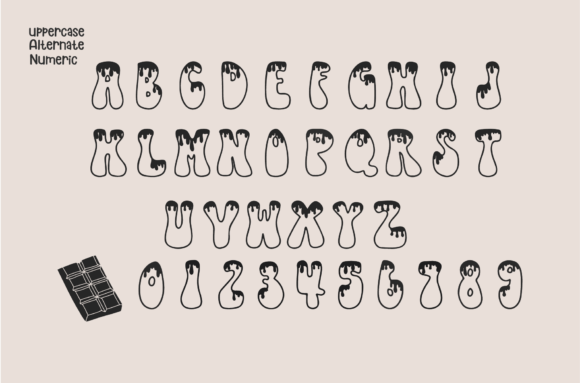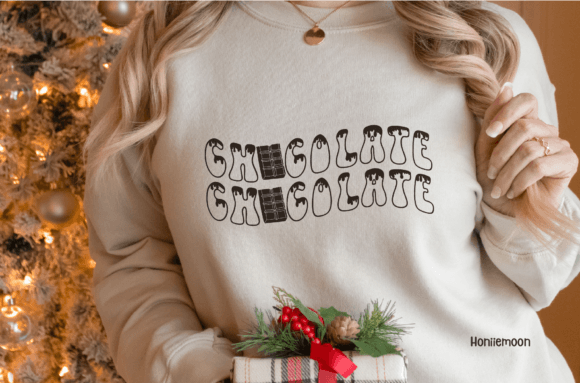
The Sweetest Font You’ll Ever Meet: Chocolate Font
I’ll never forget the time I was working on a project for a client’s kids’ party invitations. I had the design all conceptualized, but something was missing – the perfect font. I scrolled through my font library, but nothing seemed quite right. That’s when I stumbled upon the Chocolate Font. It was love at first sight! 🎉
This cool and fun decorative font instantly added a playful touch to my design. It looked both cute and jolly, and I knew it would enhance each of my creative ideas. The only limit was my imagination! In this article, I’ll share with you why I’m obsessed with the Chocolate Font, its features, and how to make the most of it in your designs.
- ✨ Cute and playful vibe: The Chocolate Font is perfect for designs that need a fun and youthful touch.
- ✅ Ease of use: This font is easy to read and works well in various design contexts, from digital to print.
- 🎉 Versatility: It comes with a range of OpenType features, glyphs, and stylistic alternates, making it versatile for different design projects.
While the Chocolate Font is amazing, there are a few things to keep in mind:
- 🤔 Legibility at small sizes: Like many decorative fonts, it may lose legibility at very small sizes. It’s best used at larger sizes where its charm can shine.
- ⚠️ Overuse: Because it’s so fun and playful, it’s easy to overuse. Balance it with simpler fonts to maintain visual hierarchy in your designs.
The Chocolate Font was designed with the intention of bringing a smile to people’s faces. Its creator, inspired by the joy of childhood and the playful world of sweets, aimed to craft a font that would add a touch of whimsy to any design. While the actual designer remains a mystery, the font’s charm is undeniable.
A: Absolutely! While it’s playful, the Chocolate Font can add a unique and professional touch to designs, especially those for children’s events, food blogs, or any project requiring a fun vibe.
The Chocolate Font is more than just a decorative font – it’s a design element that can transform your projects with its playful and jolly vibe. Whether you’re a designer, crafter, or hobbyist, this font is sure to inspire creativity and bring your designs to life. So go ahead, add a spoonful of sugar (or in this case, chocolate) to your designs and watch them become irresistibly appealing!